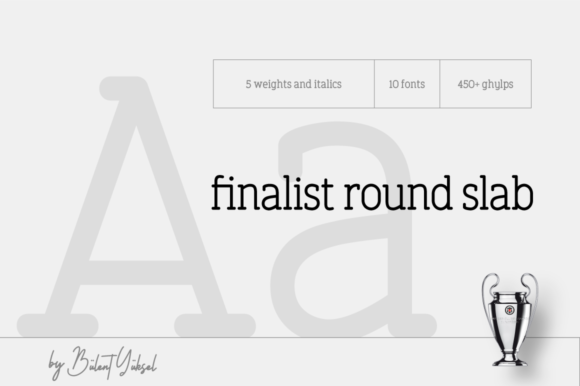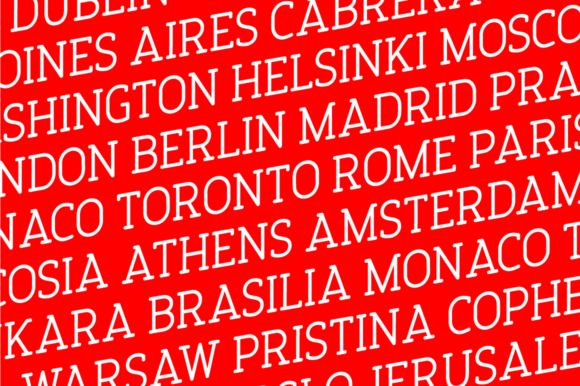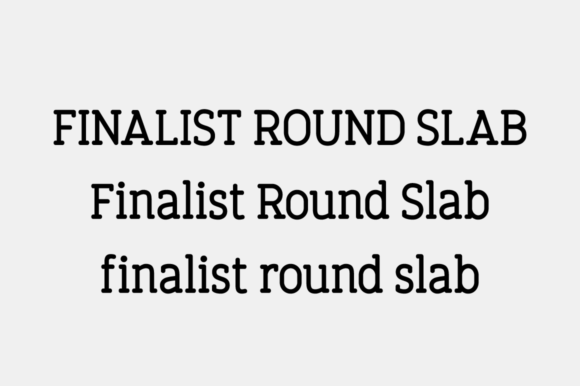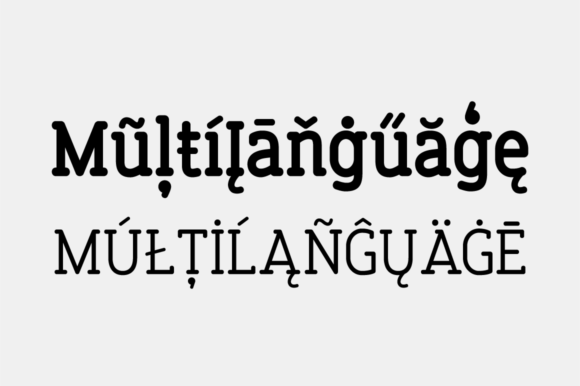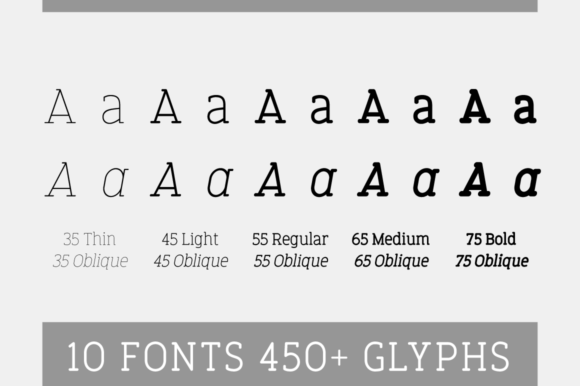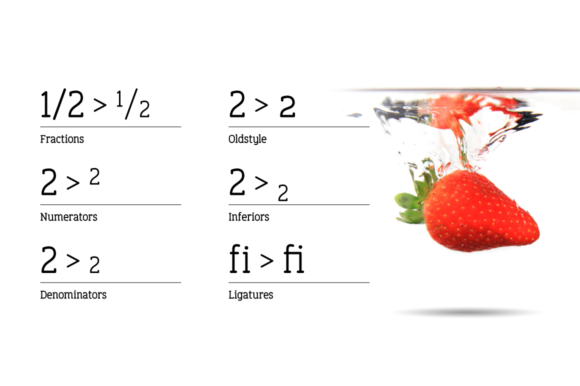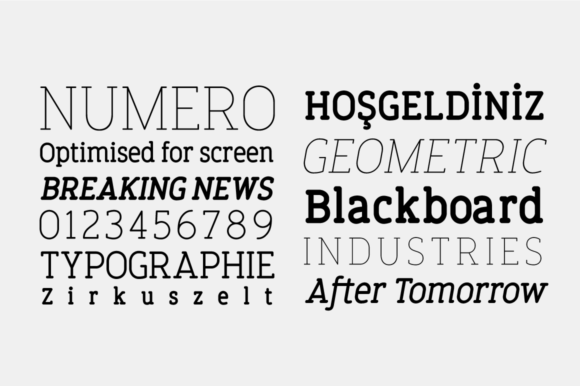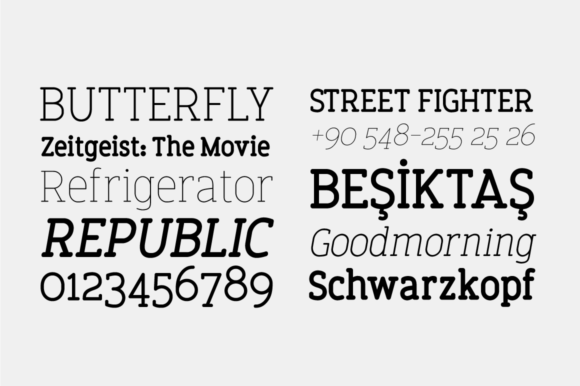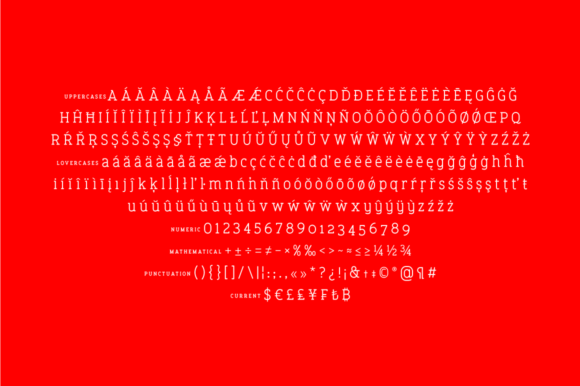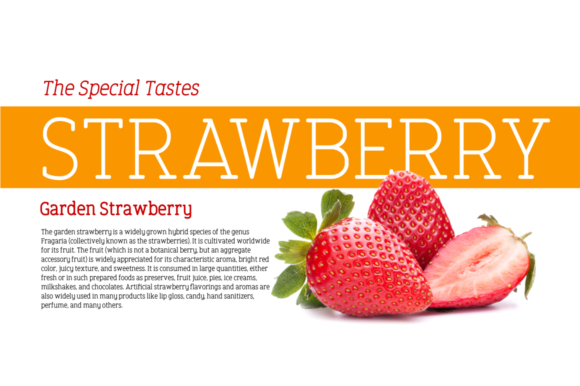
Finalist Round Slab
Finalist Round Slab: A Minimal and Versatile Slab Serif Font
Finalist Round Slab is a distinctive slab serif font that combines minimalism with versatility. This typeface offers designers a powerful tool for creating impactful typography across a wide range of creative projects.
Key Features of Finalist Round Slab
• Minimal Design: Features a clean, uncomplicated structure for maximum readability
• Neat Aesthetic: Offers a tidy and well-organized typography
• Slab Serif Structure: Incorporates the characteristic thick, rectangular serifs typical of slab serif fonts
• Versatile Application: Suitable for an incredibly large set of projects
• Stand-Out Quality: Designed to make creative ideas pop and grab attention
Ideal Uses for Finalist Round Slab
Finalist Round Slab’s unique characteristics make it well-suited for a wide range of applications, including:
• Branding and logo design
• Editorial layouts and headlines
• Website headers and digital content
• Packaging design
• Social media graphics
When incorporating Finalist Round Slab into your designs, consider the following tips:
• Use for both headlines and body text to showcase its versatility
• Experiment with different sizes to create hierarchy while maintaining readability
• Consider pairing with complementary fonts to create visual interest
• Take advantage of its minimal nature in projects where you want to convey simplicity and clarity
Finalist Round Slab is an excellent choice for designers looking to add a minimal and versatile slab serif to their typographic toolkit. Its clean design and adaptability make it stand out in the world of typography. Whether you’re working on logo designs, creating layouts for editorial projects, or developing branding for various businesses, Finalist Round Slab offers the perfect blend of simplicity and impact.
Add Finalist Round Slab to your creative ideas and explore how it can bring a minimal and neat edge to your design projects. From clean headlines to readable body text, this font provides the tools to create impactful and memorable typography that stands out in various design contexts.